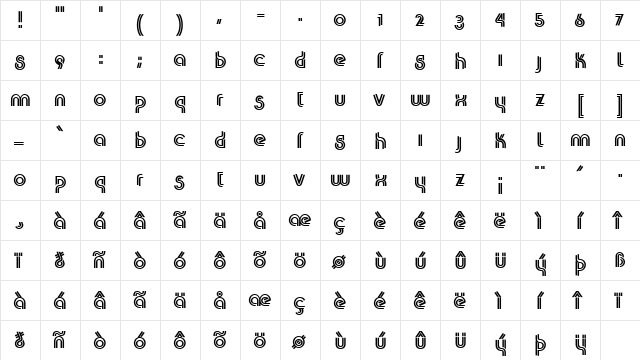
K22 Plural Regular
| Foundry | Toto |
| Designer | Vicente Rojo, Toto |
Design Context for K22 Plural Typeface
K22 Plural is a composed and adaptable typeface that performs quietly and consistently across a wide range of design contexts.